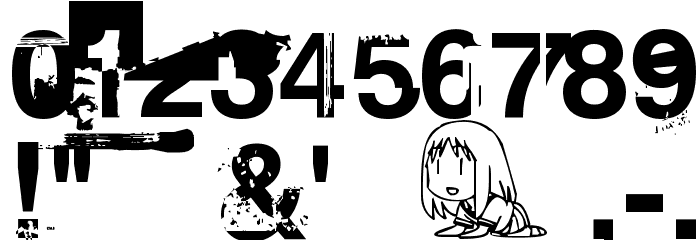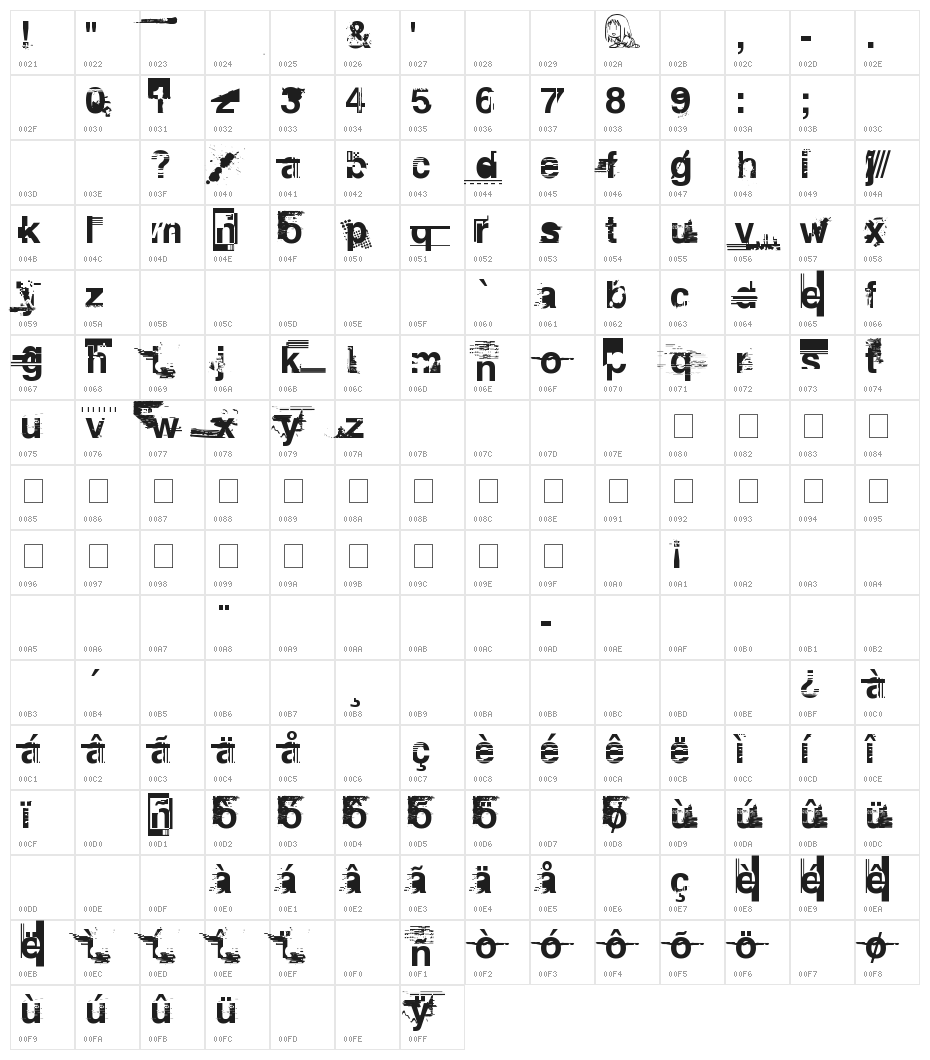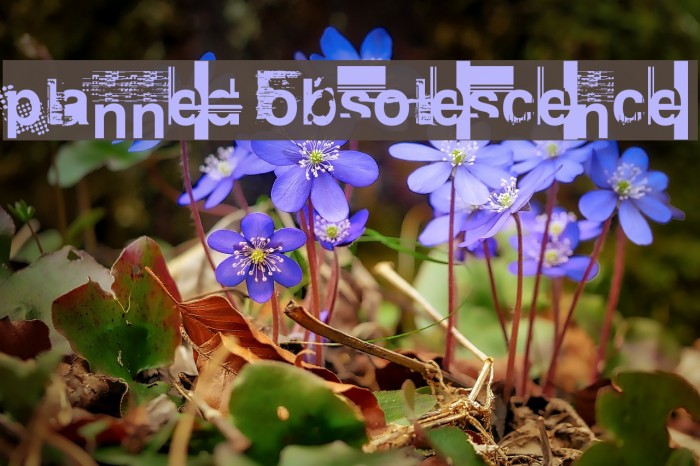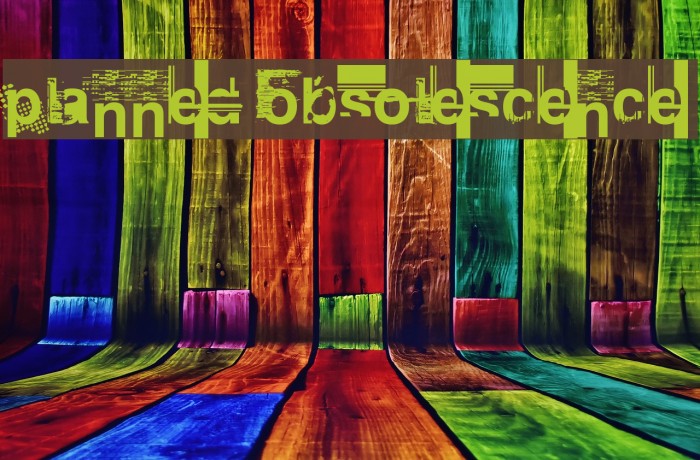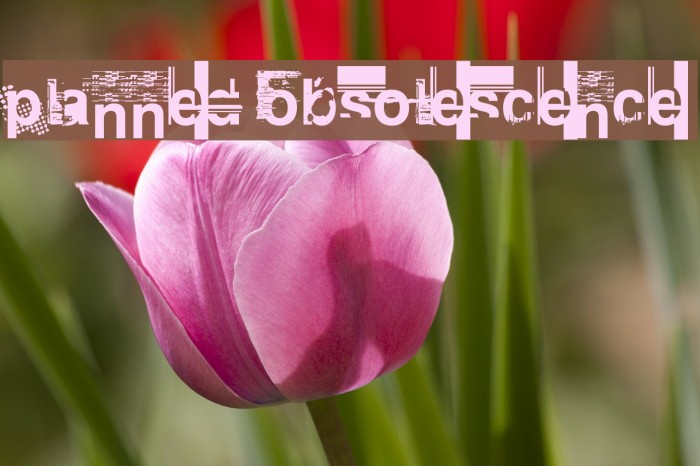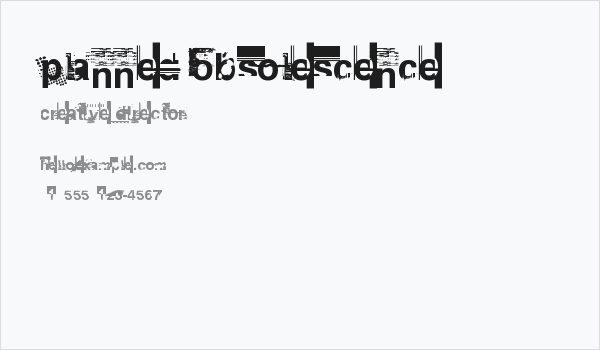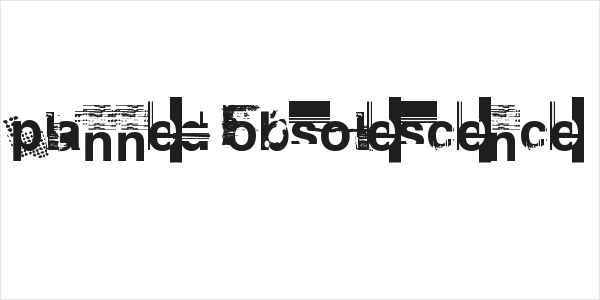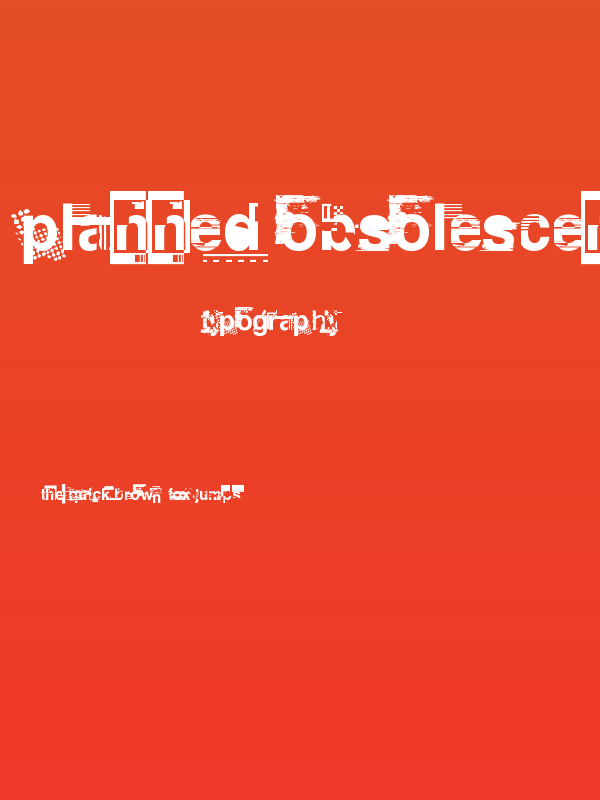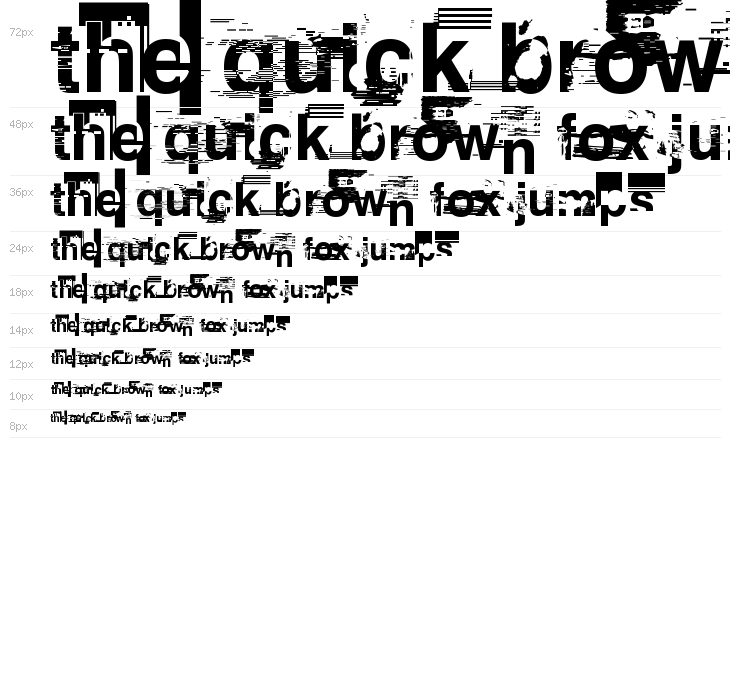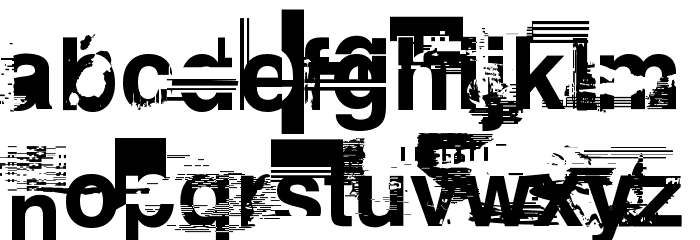
Planned Obsolescence Font
Planned Obsolescence Description
This font exhibits a highly distressed and grungy aesthetic, characterized by heavy distortion and irregularities in its letterforms. The characters appear as if they have been subjected to wear and tear, with portions of the letters missing or obscured by splatters and scratches. This creates a chaotic and edgy look, reminiscent of urban decay or industrial environments. The uppercase and lowercase letters, as well as numbers and special characters, all share this distressed style, making the font suitable for projects that require a raw, gritty feel. Despite its chaotic appearance, the font maintains a consistent baseline and x-height, ensuring readability while delivering its unique visual impact.
| Overall Style | Grunge, Urban, Distressed |
| Use Case | Logos, Posters, Album Covers |
| Proposed Projects | Ideal for album covers, streetwear branding, urban-themed posters, and edgy graphic design projects. |